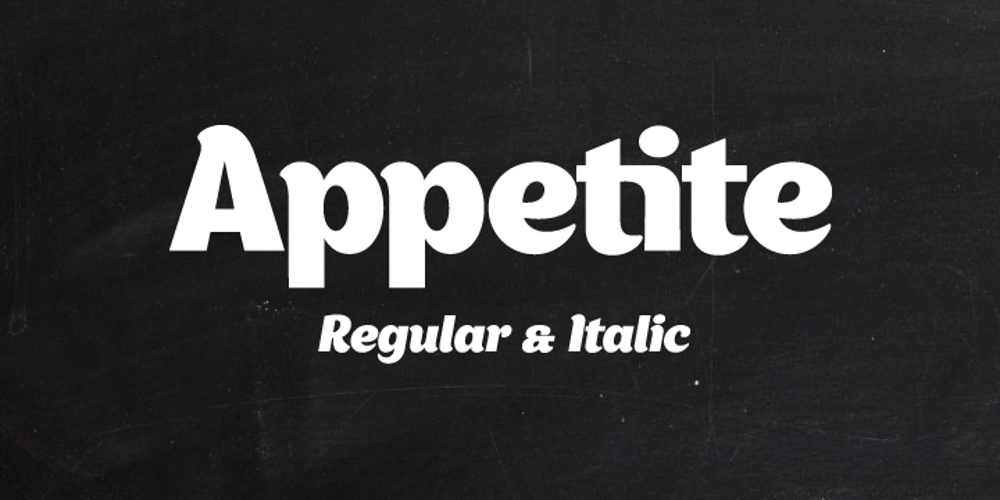
Appetite Font Family was designed by Denis Serebryakov and published by Serebryakov. Appetite contains 2 styles and family package options. Appetite is a bold sans font with a lot of sweet ligature glyphs. Specially designed for logotype, packaging & editorial design projects. Look at the new Appetite version — Appetite Pro — Release 2016!